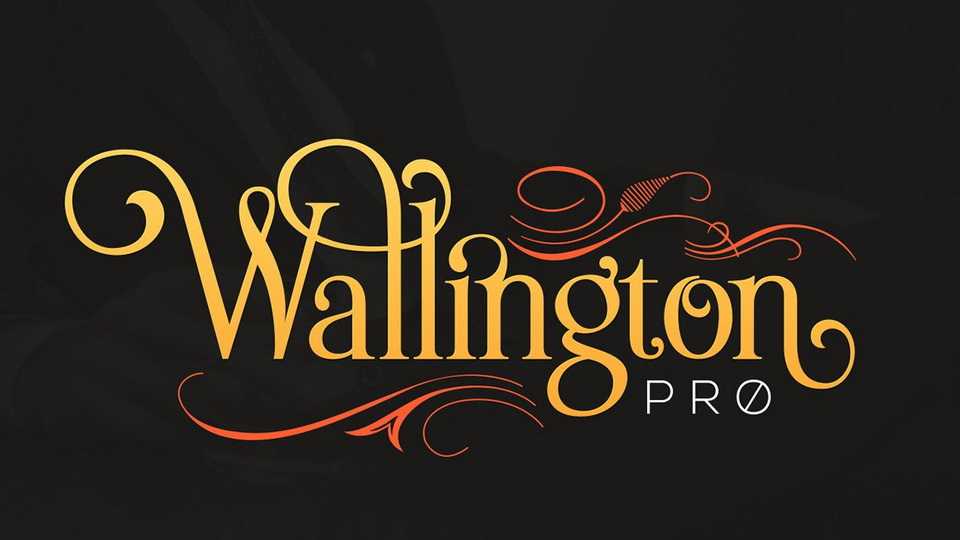
Download Wallington font, a decorative serif typeface embodying vintage and elegant curves with functional structure. Style is adopted from Old English cultures with their descendants around mid-12th century and Art nouveau in 19th century.
Designer: Zeune Ink Foundry